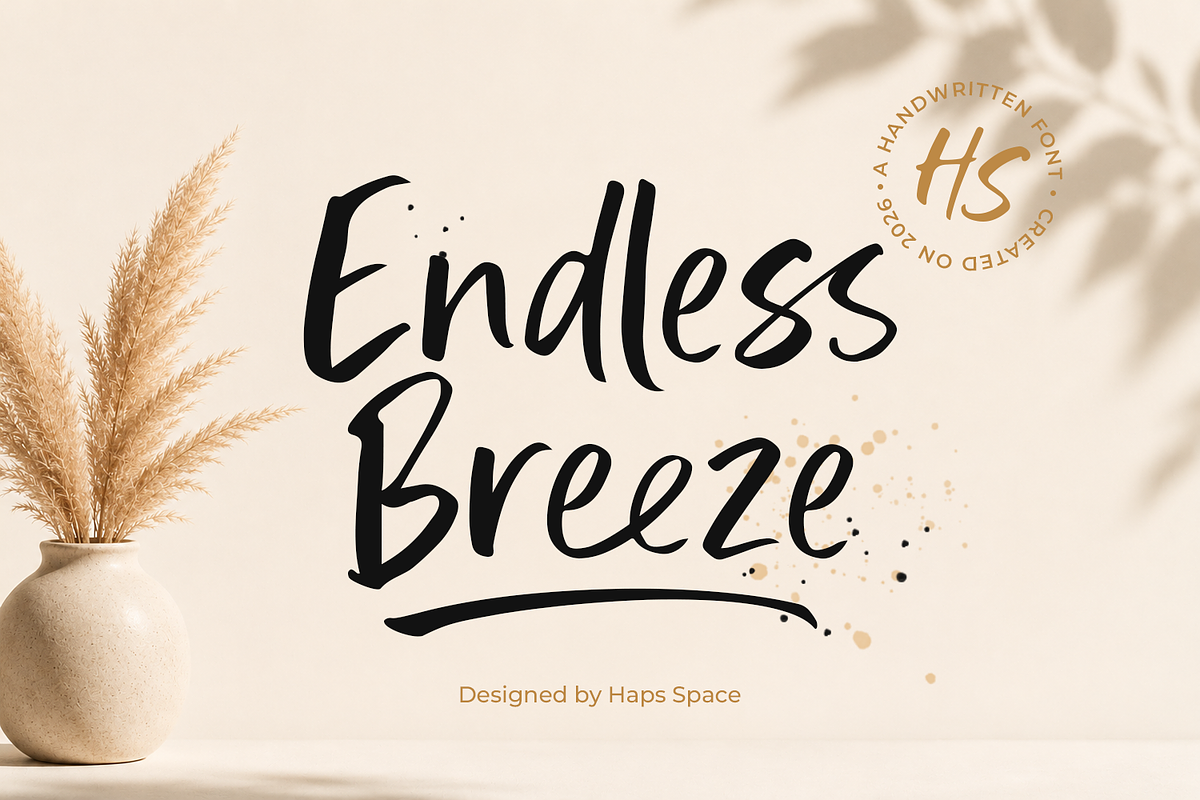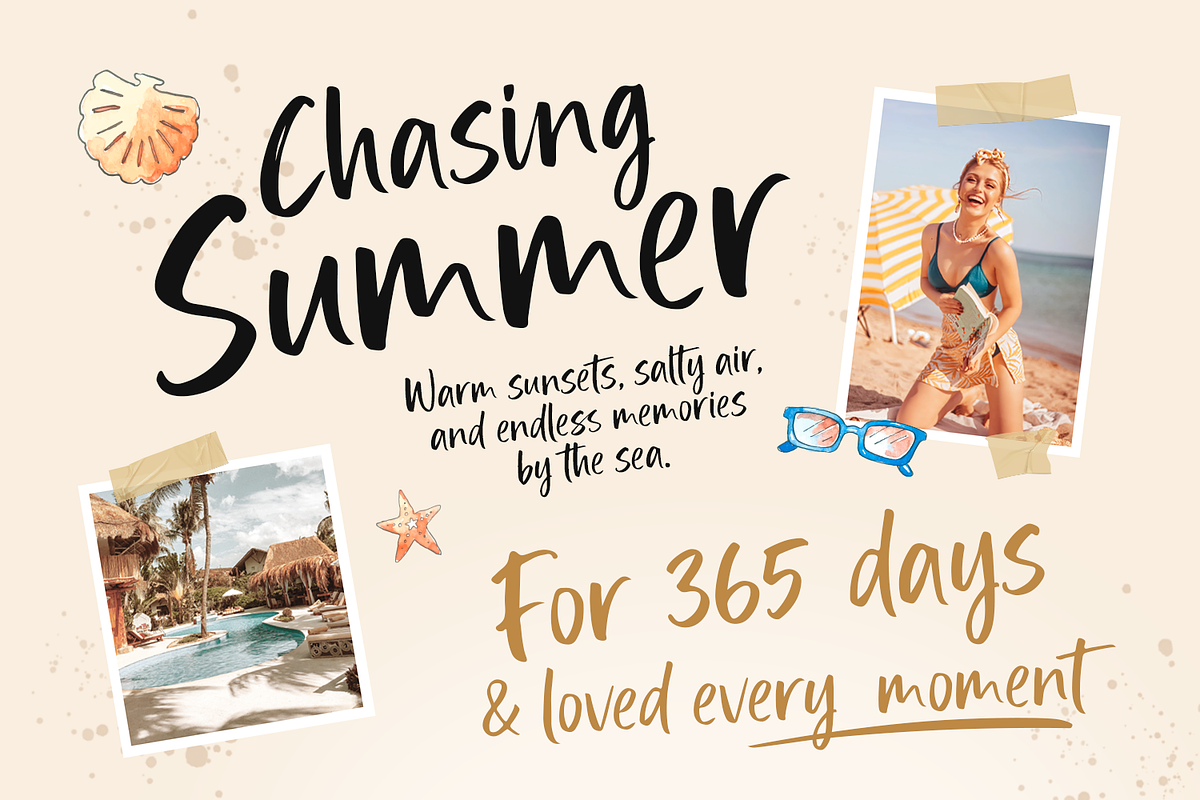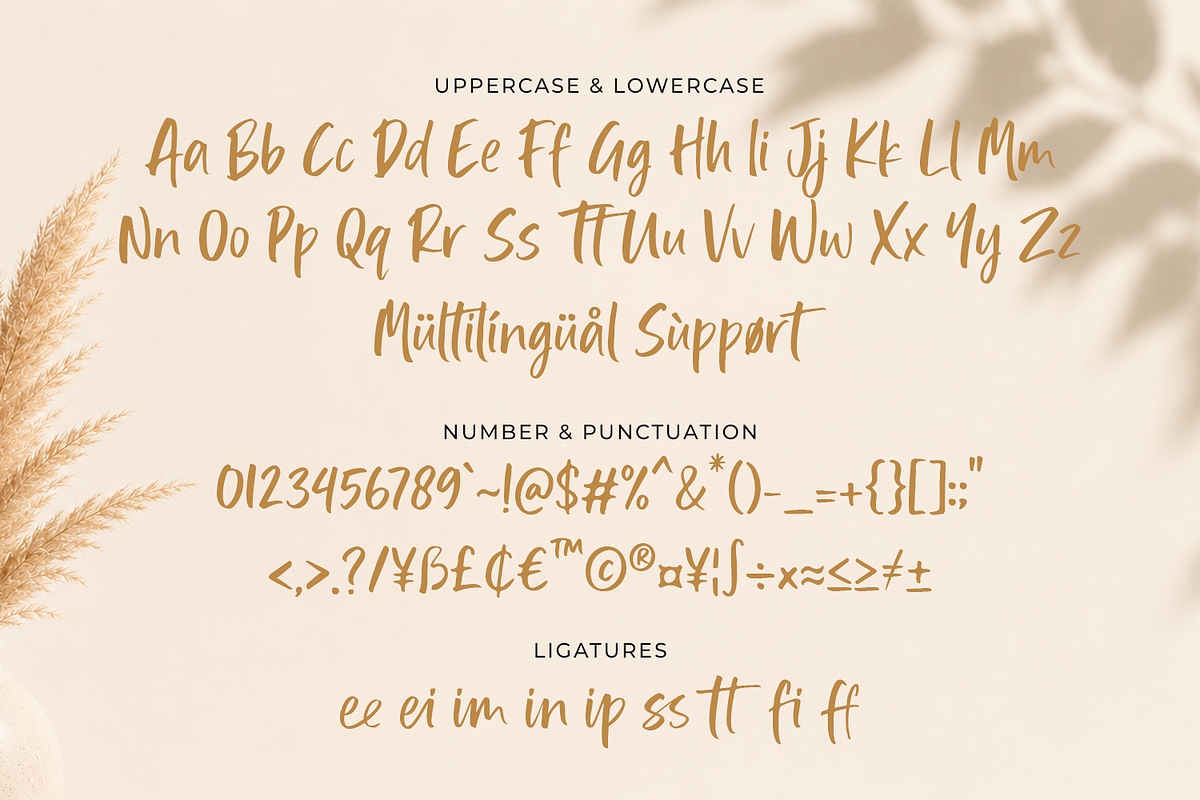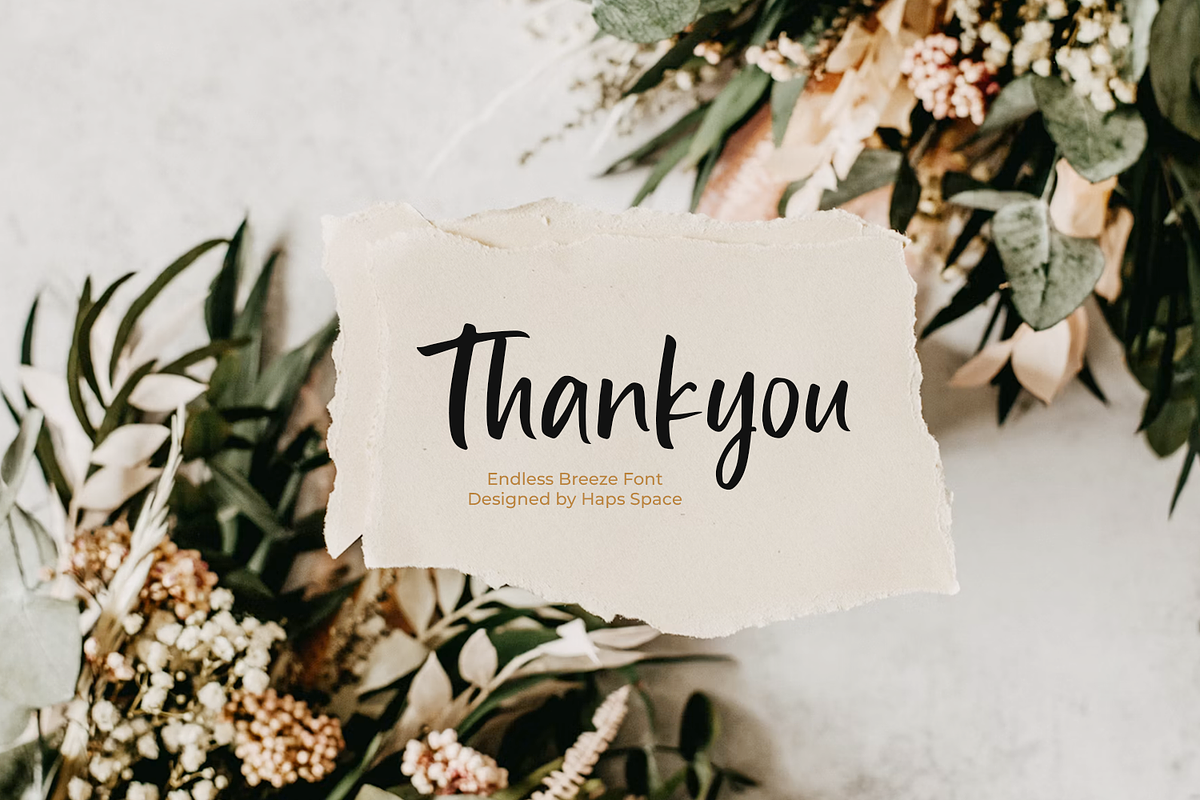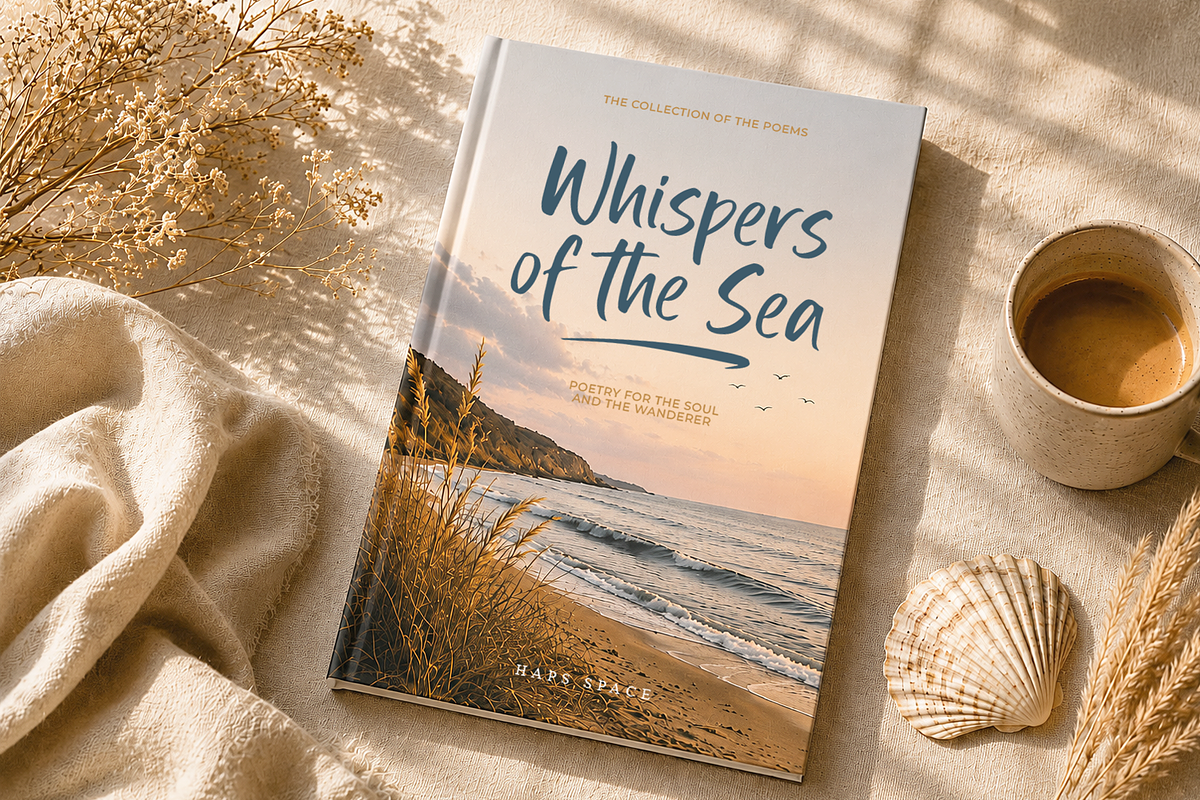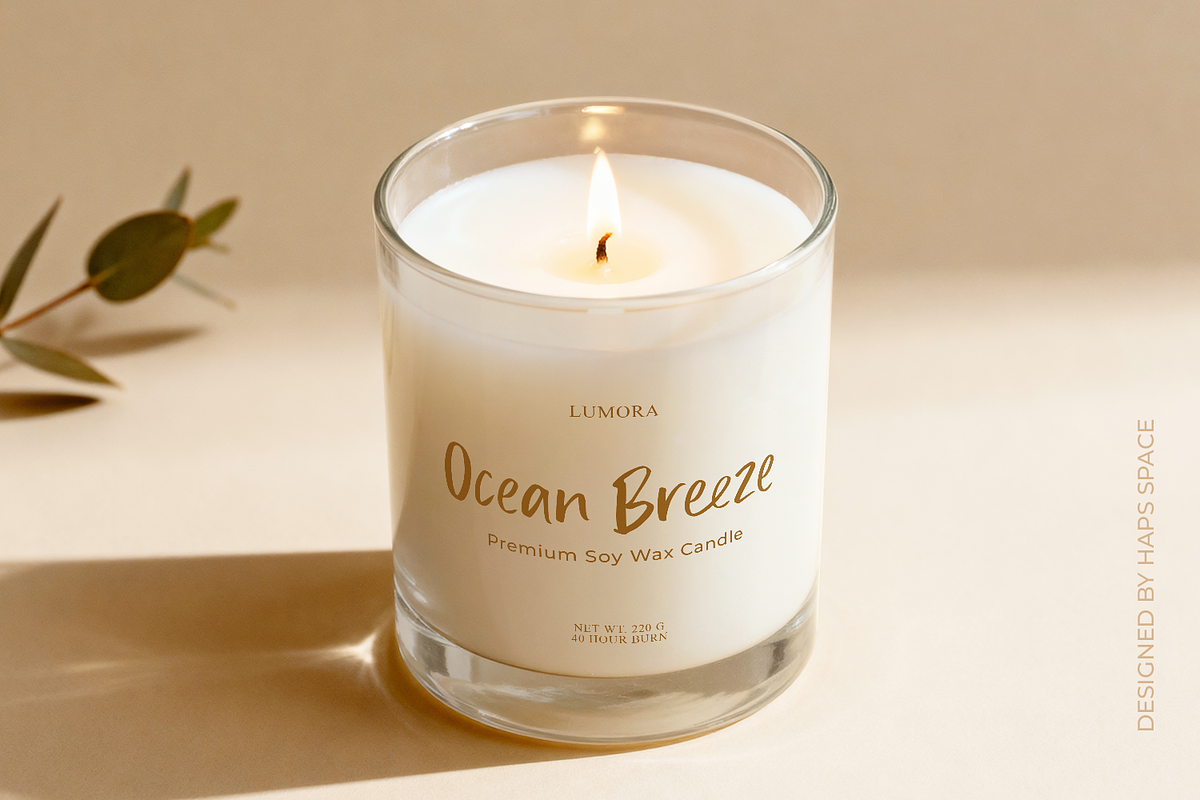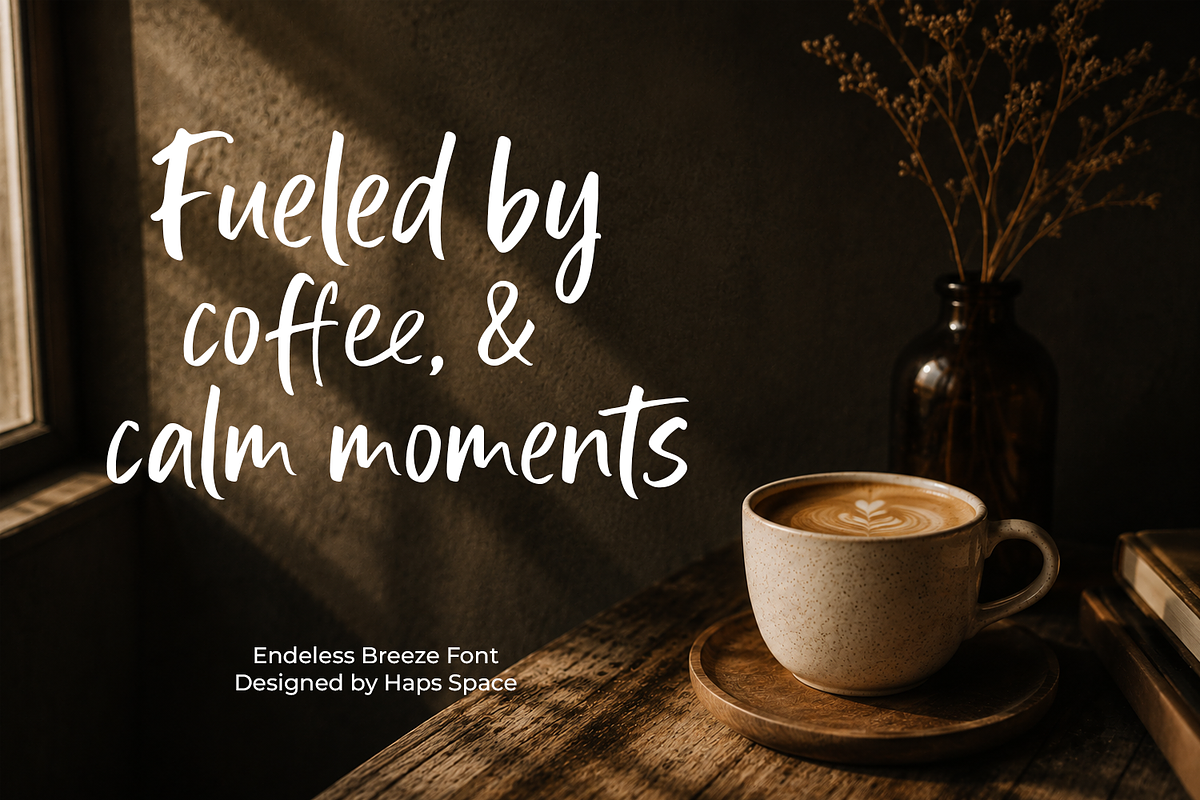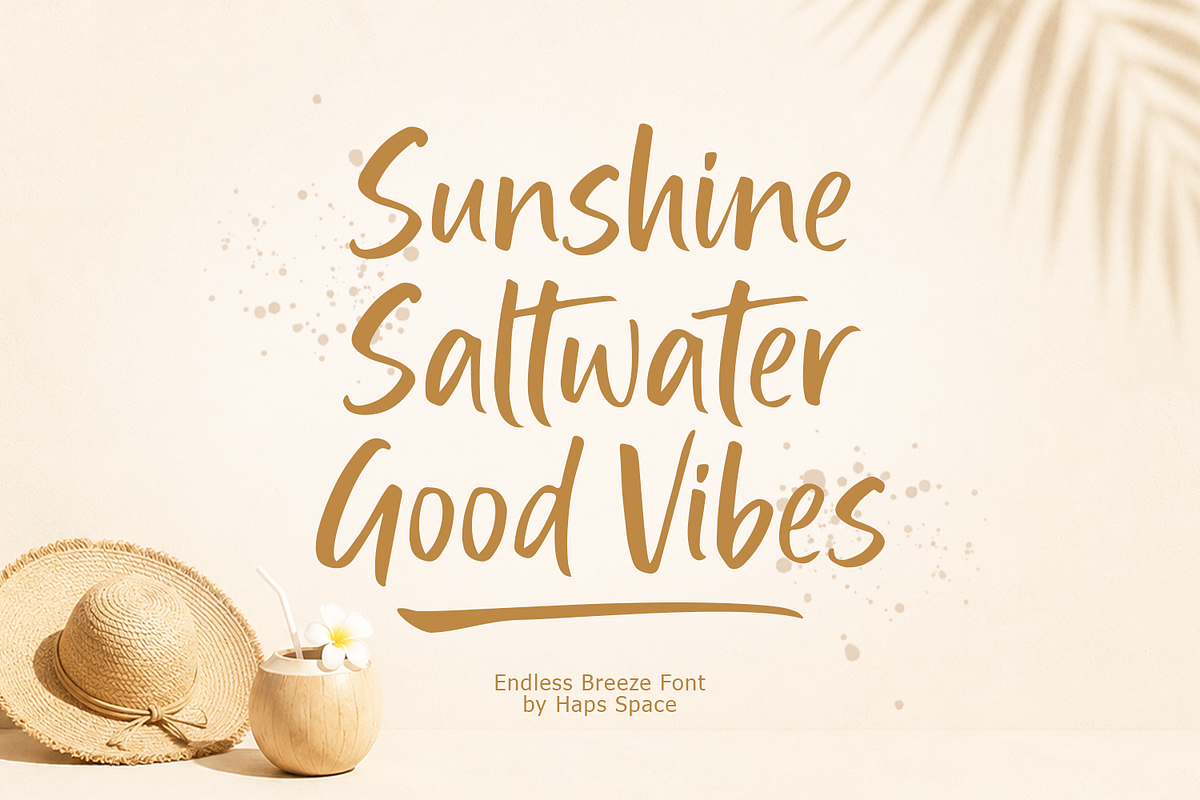
Endless Breeze Natural Handwritten
Endless Breeze is a relaxed, organic handwritten script font designed to bring an effortless, artistic warmth to your creative projects. Crafted with a natural flow and expressive brush-like strokes, this typeface captures a casual yet elegant aesthetic that stands out effortlessly.
Whether you are designing modern brand identities, social media graphics, or stylish editorial layouts, Endless Breeze delivers a authentic handcrafted feel that instantly elevates your visual storytelling.
Features & Details:
- Character Set: Full Uppercase and Lowercase letters
- Numerals & Punctuation: Complete set of numbers, symbols, and standard punctuation marks
- Design Aesthetic: Casual, organic, fluid, and handwritten
- Multilingual Support: Supports standard Western European languages.
Ideal For:
- Branding & Logos: Perfect for lifestyle brands, beauty products, photography watermarks, and boutique logos.
- Packaging & Labels: Adds an authentic, artisanal touch to cosmetics, candles, organic products, and coffee packaging.
- Social Media: Ideal for Instagram quotes, promotional graphics.
- Editorial & Marketing: Works beautifully in magazine headlines, blog headers, event invitations, and digital banners.